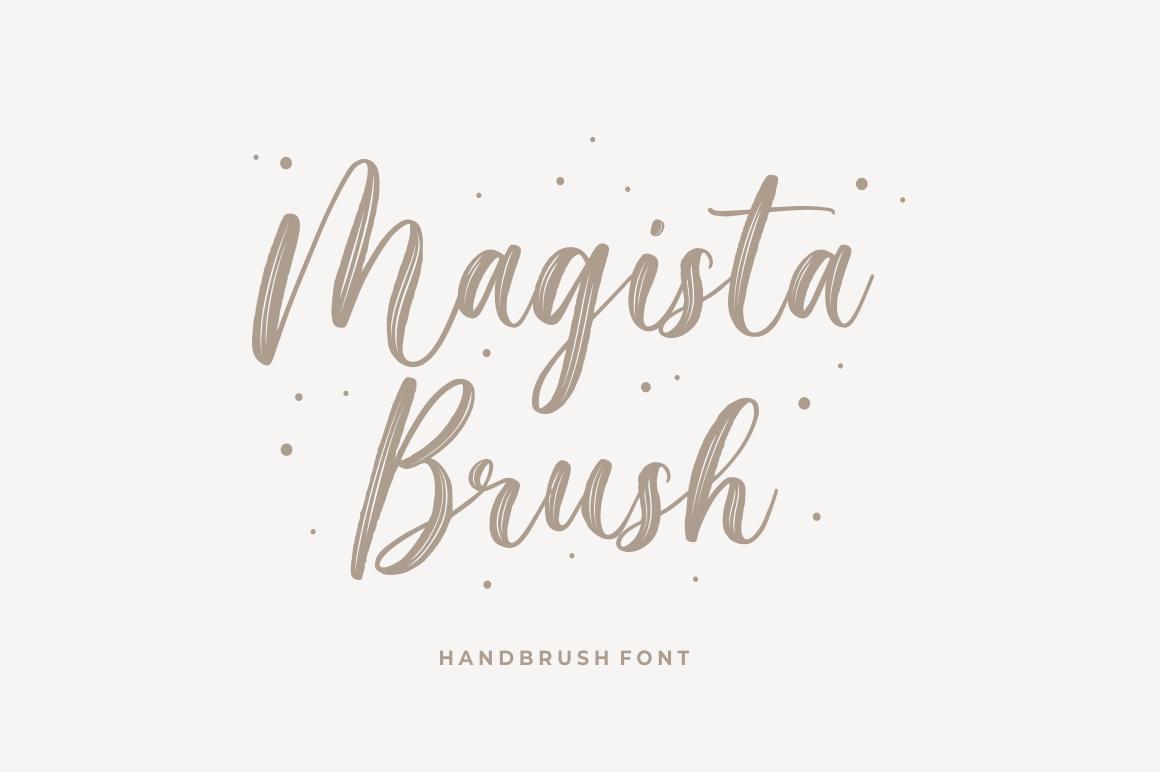
Magista Brush Font Description
Magista Brush is a flowing handwritten font, described by an elegant touch, perfect for your favorite projects. This beautiful and professional typeface is suitable for posters, headlines, block letters, subheadings, logo designs, branding and so much more.